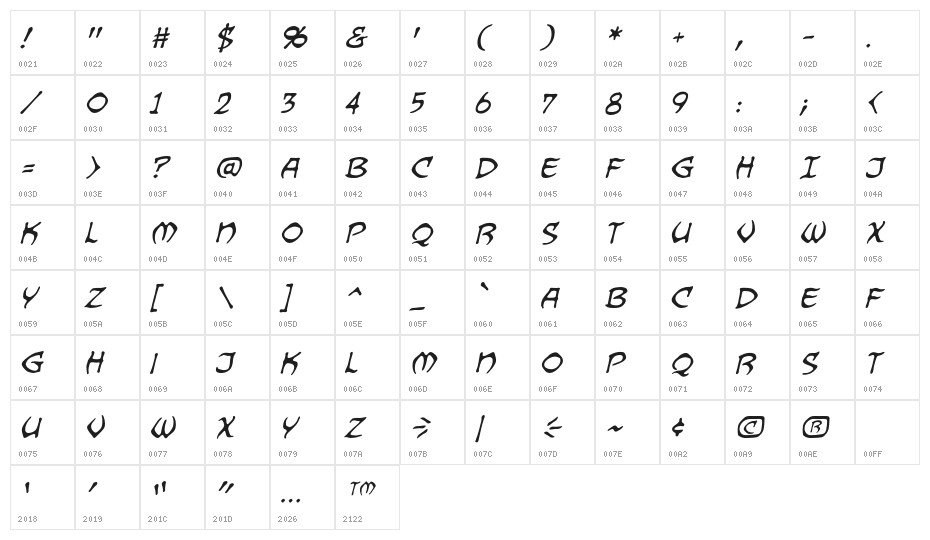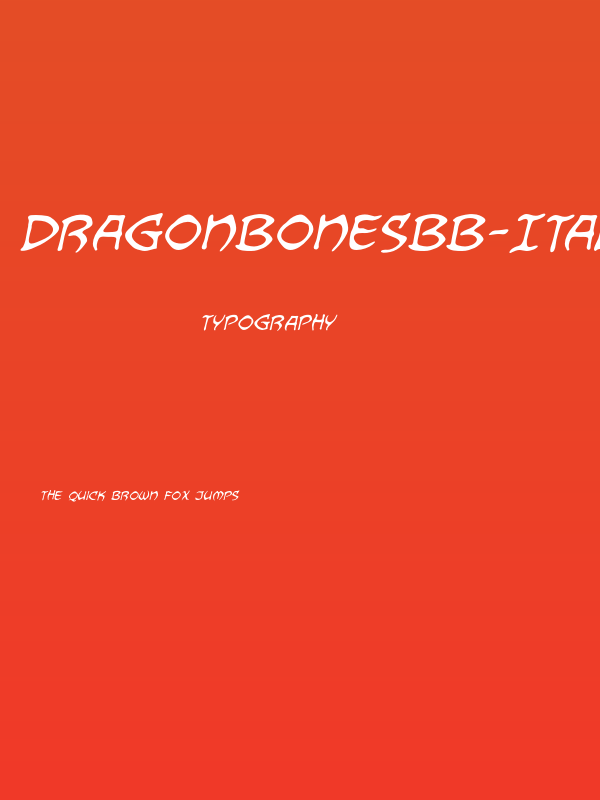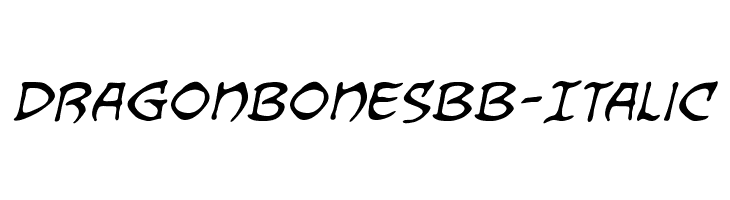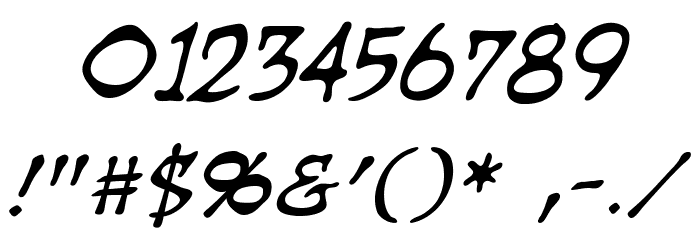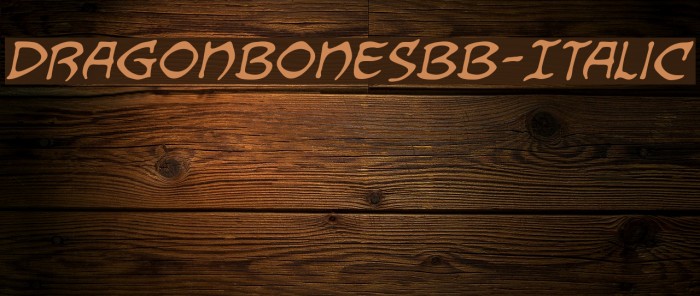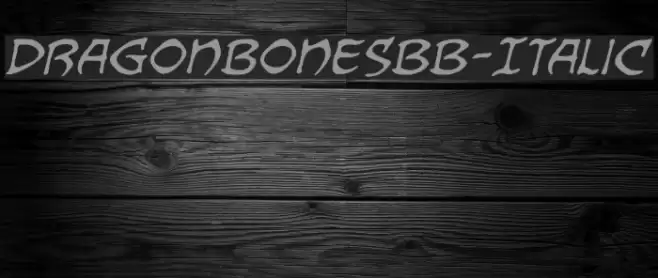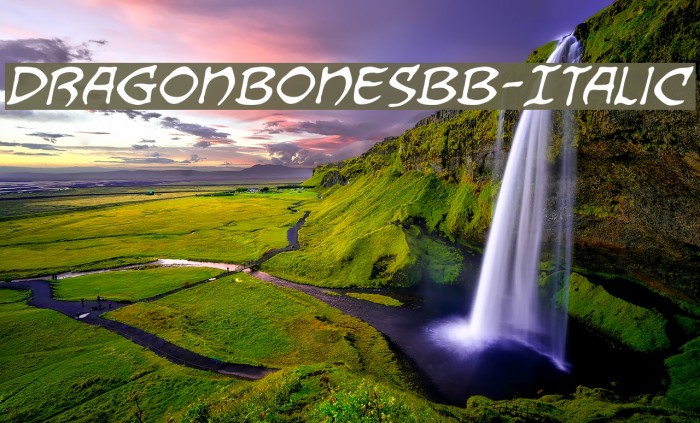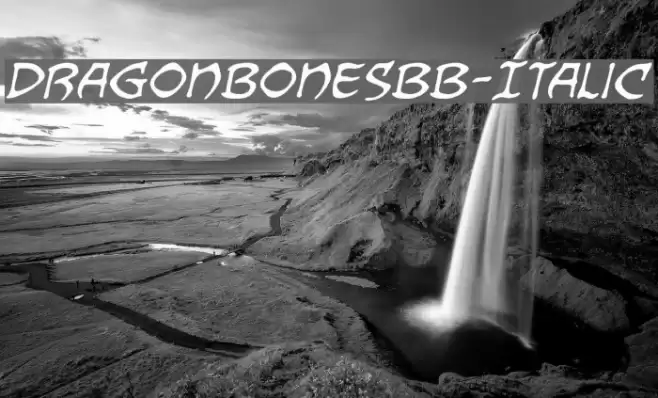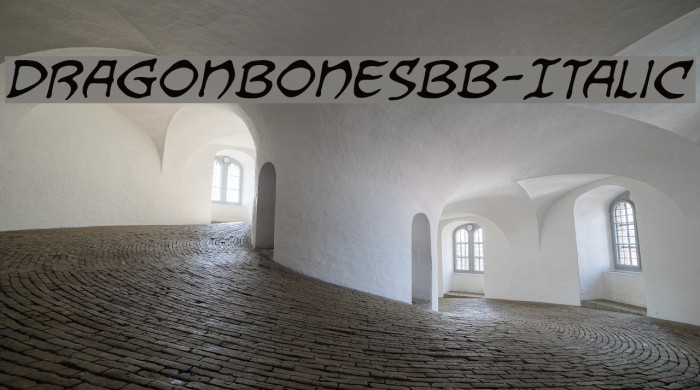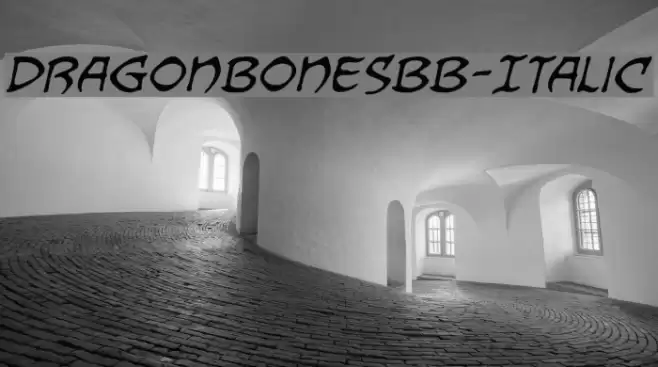
DragonbonesBB-Italic Font
DragonbonesBB-Italic Description
This font features a dynamic and energetic style with a distinct italic slant, giving it a sense of motion and fluidity. The characters are bold and slightly condensed, with sharp, angular edges that create a striking appearance. The uppercase and lowercase letters maintain a consistent style, with unique flourishes that add a touch of personality. The numerals are clear and legible, matching the overall aesthetic. Special characters are included, enhancing its versatility. This font's bold strokes and artistic flair make it suitable for creative and impactful designs.
| Width | Condensed |
| Overall Style | Modern, Decorative |
| Use Case | Logos, Headlines, Posters |
| Proposed Projects | Ideal for branding, posters, video game graphics, and any project requiring a bold, artistic touch. |